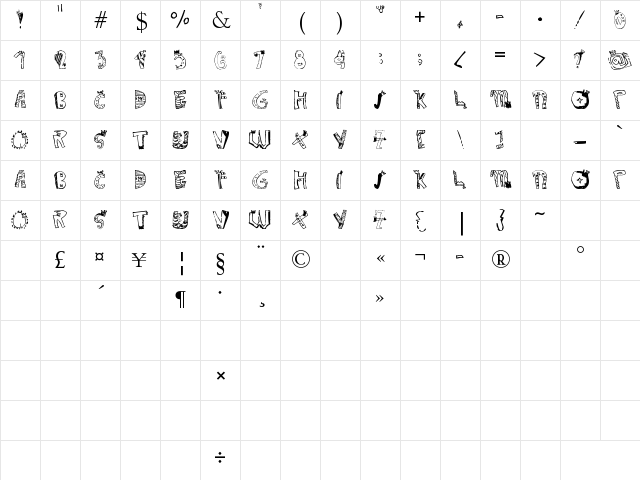
Crown Doodle {denne} Regular Free Font
Crown Doodle {denne} Regular
Design Context for Crown Doodle {denne}
Crown Doodle {denne} is a composed and adaptable typeface that performs quietly and consistently across a wide range of design contexts.